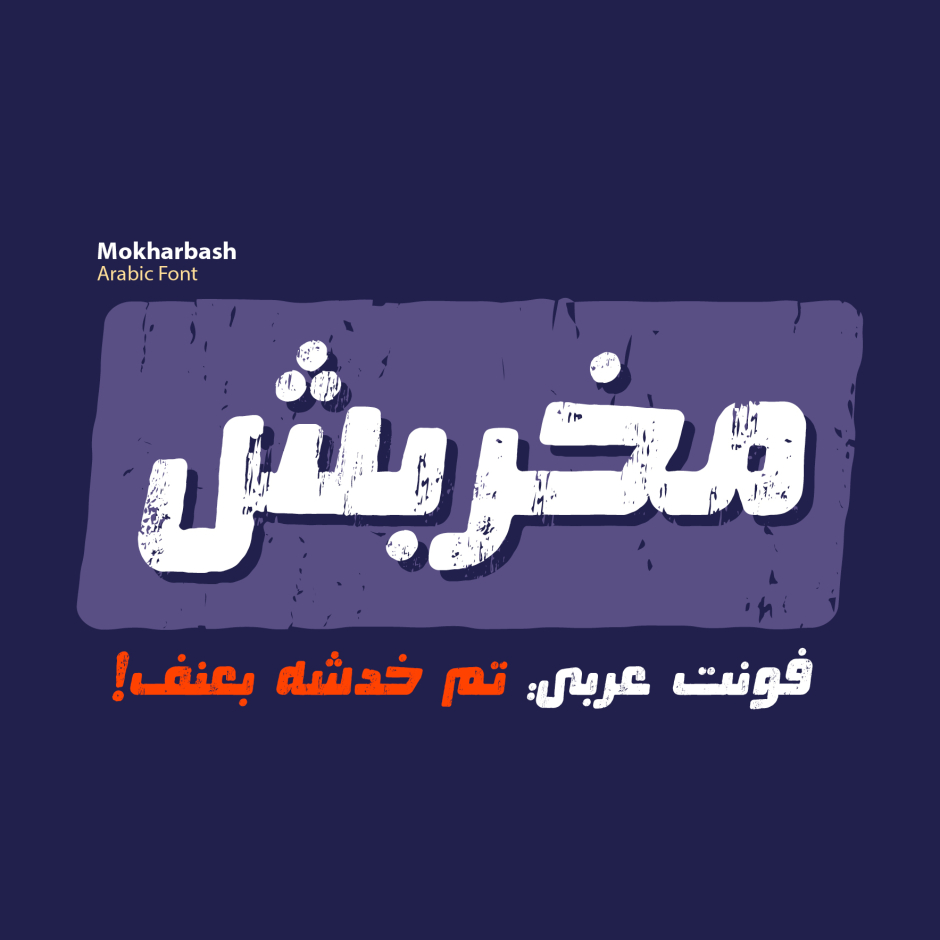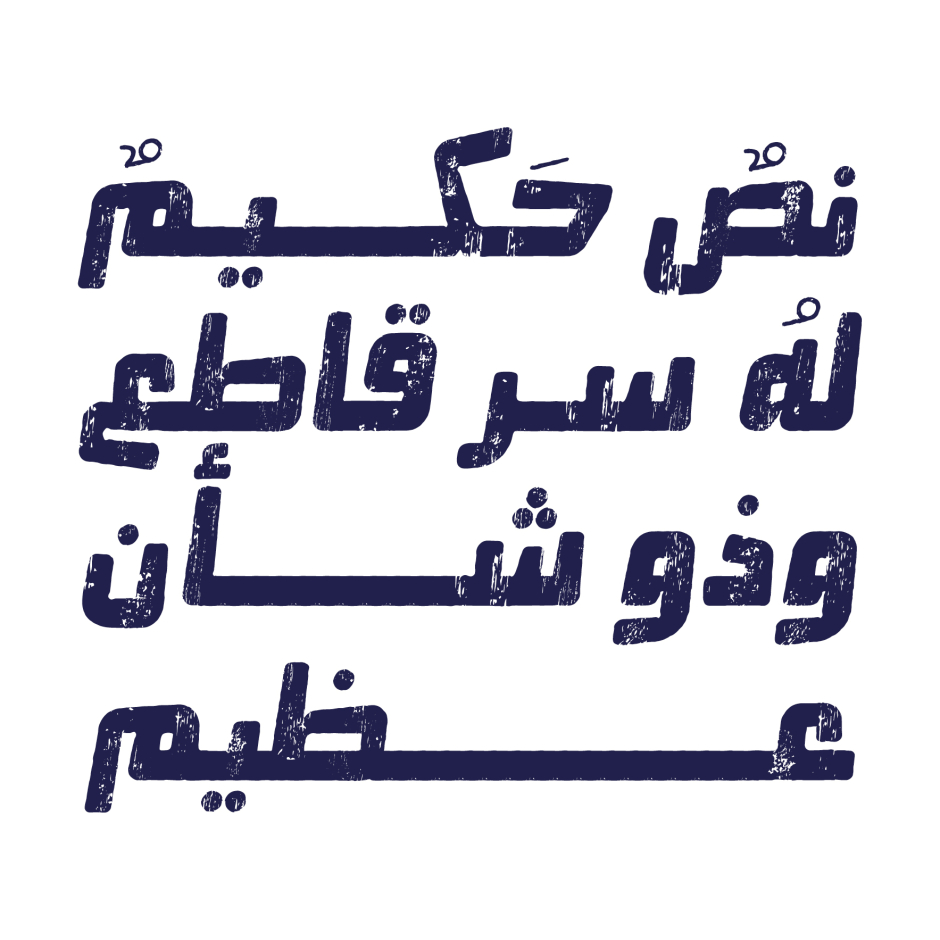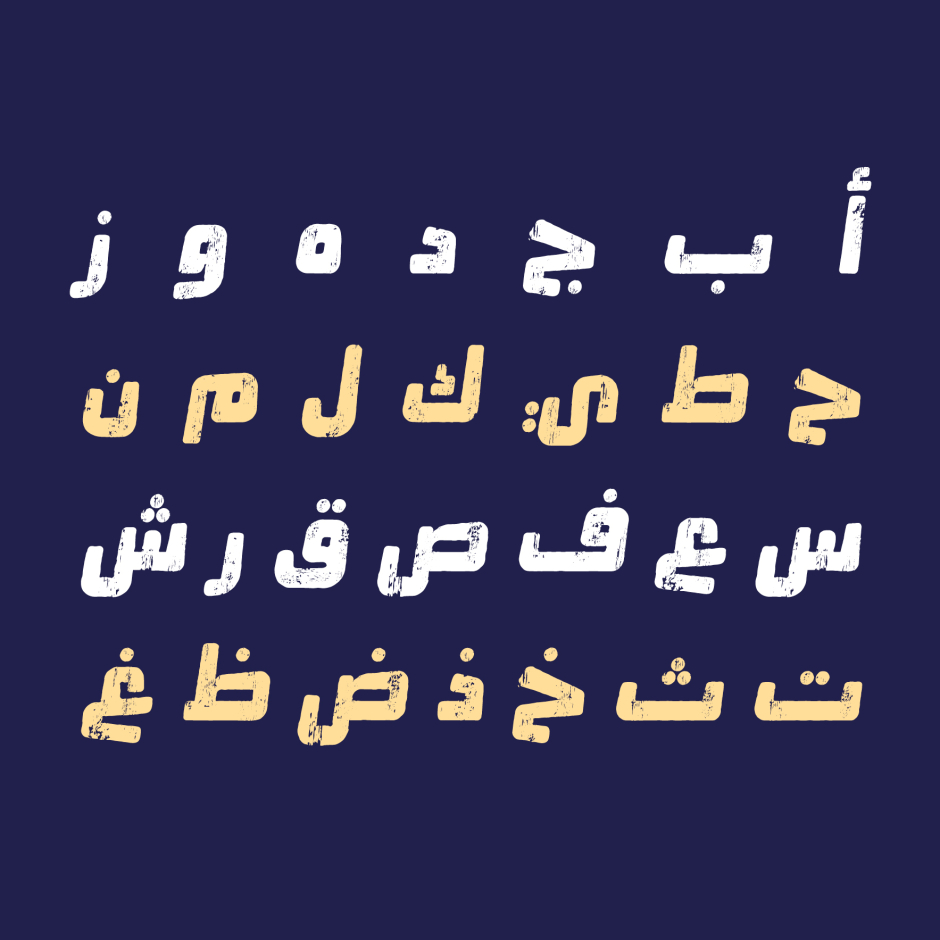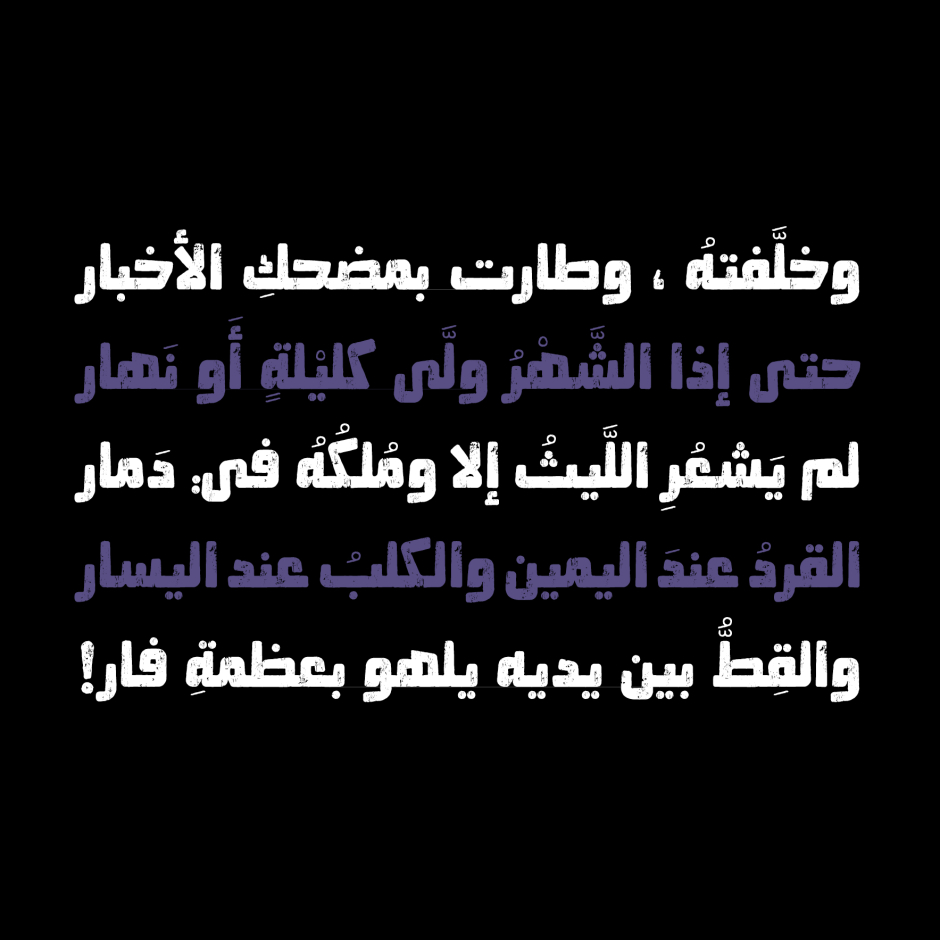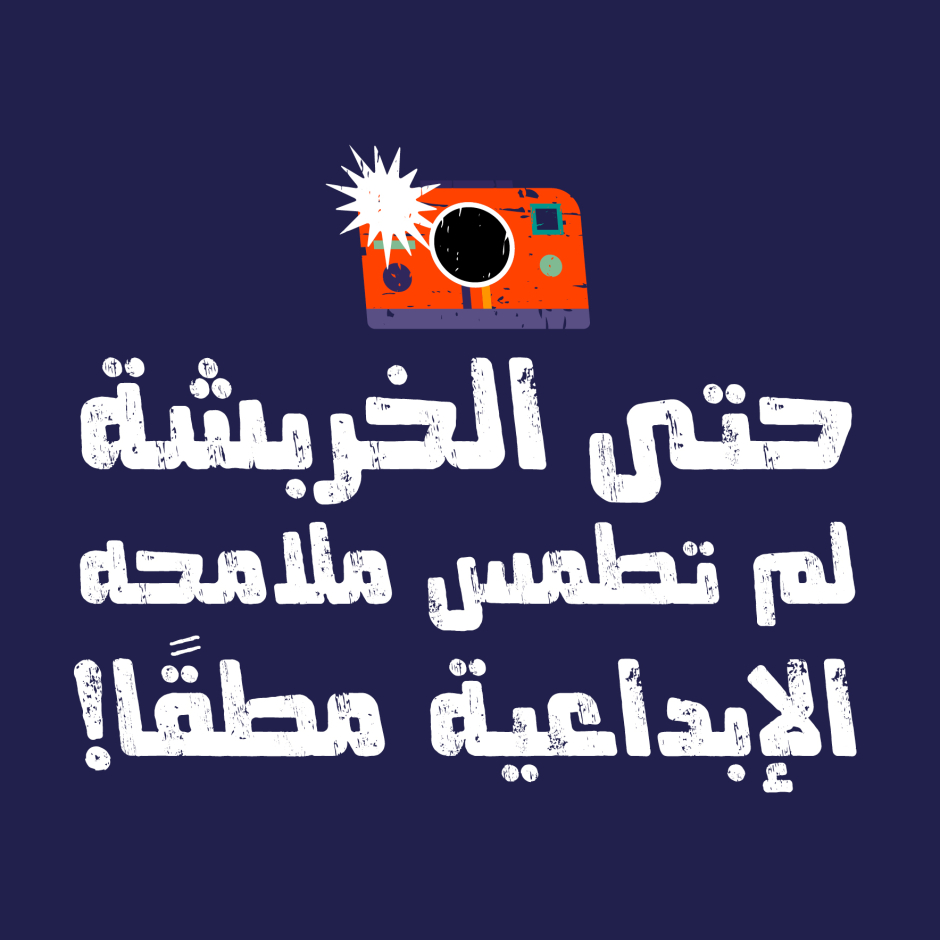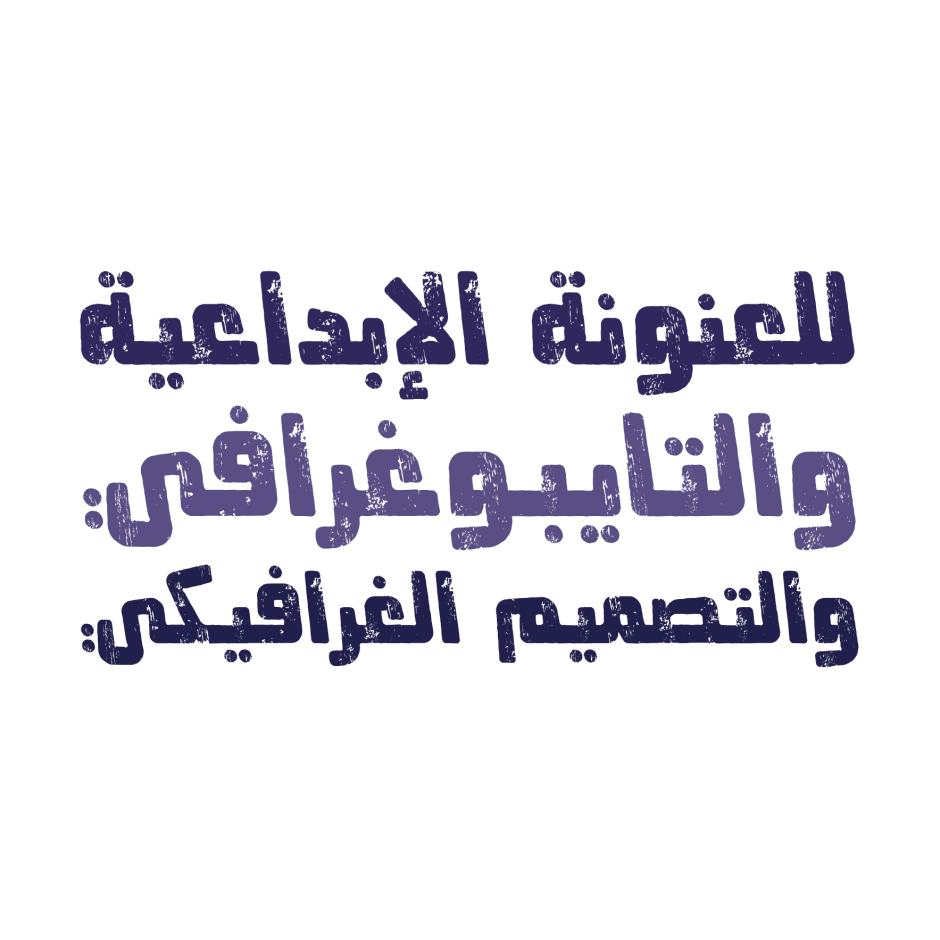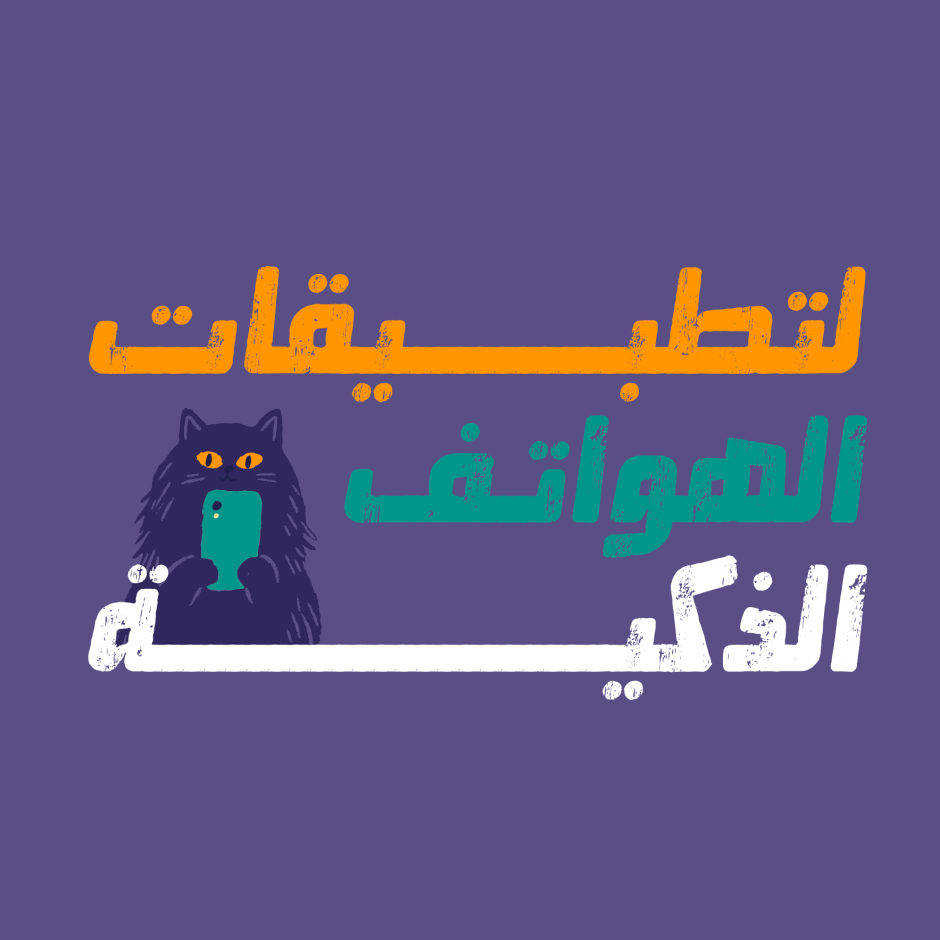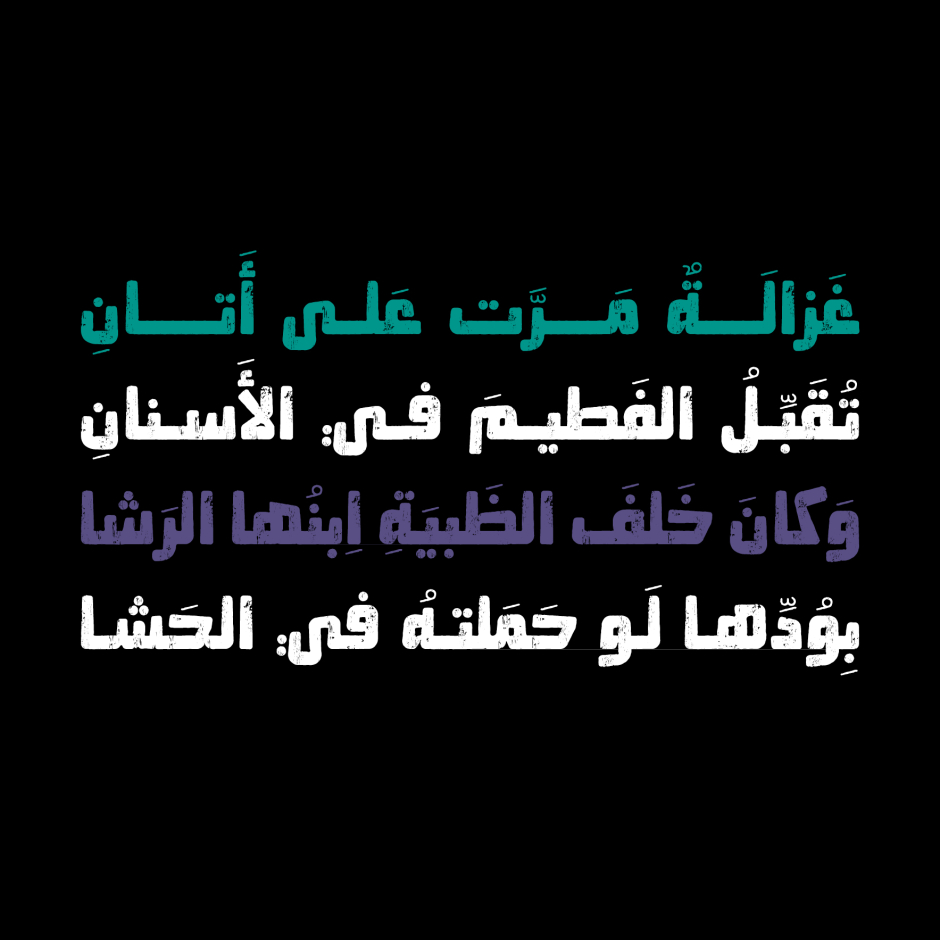
Mokharbash
/ Scratched
Mokharbash, which translates to "scratched" in Arabic, is a unique font that combines contemporary design language with a hand-crafted, textured appearance. With its bold and easily legible letterforms, it is ideal for technology, media, and branding projects while paying tribute to Arabic calligraphy. Mokharbash font family consists of Scratched, Oblique1, and Oblique2. It supports Windows, macOS and mobile applications.